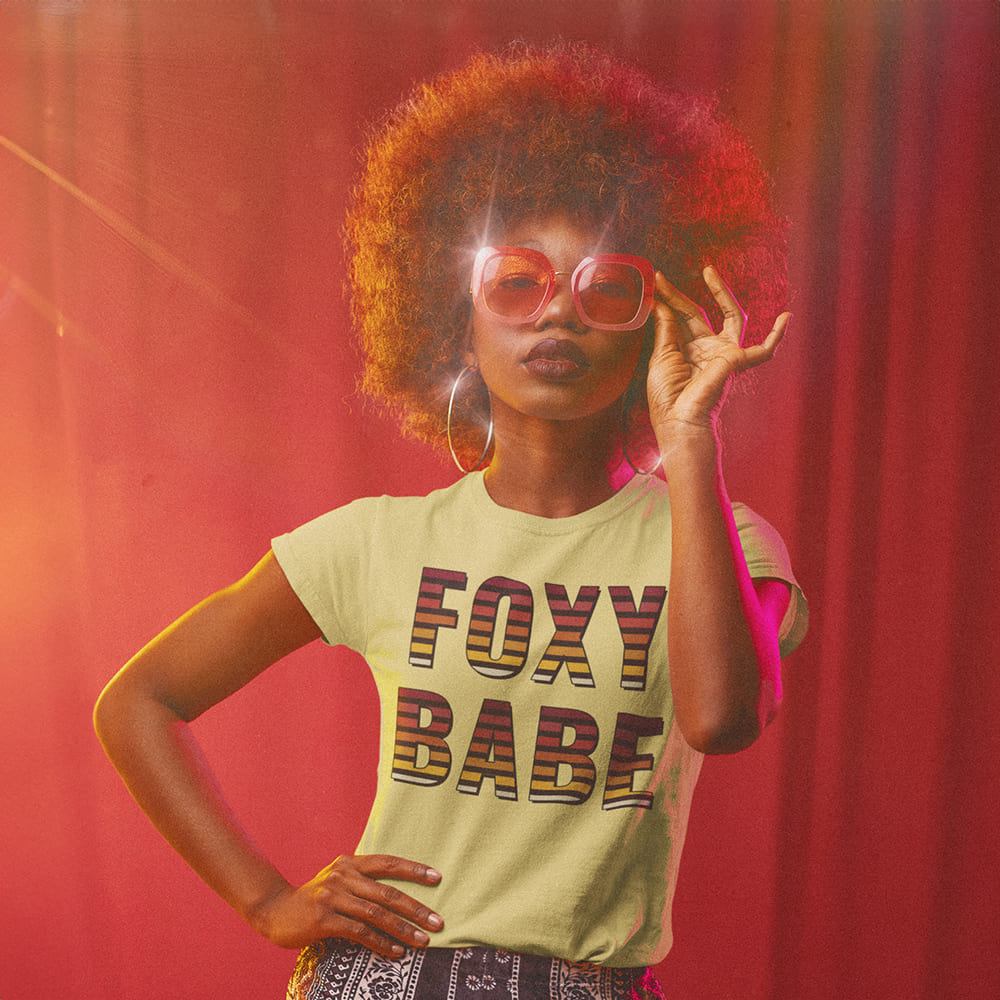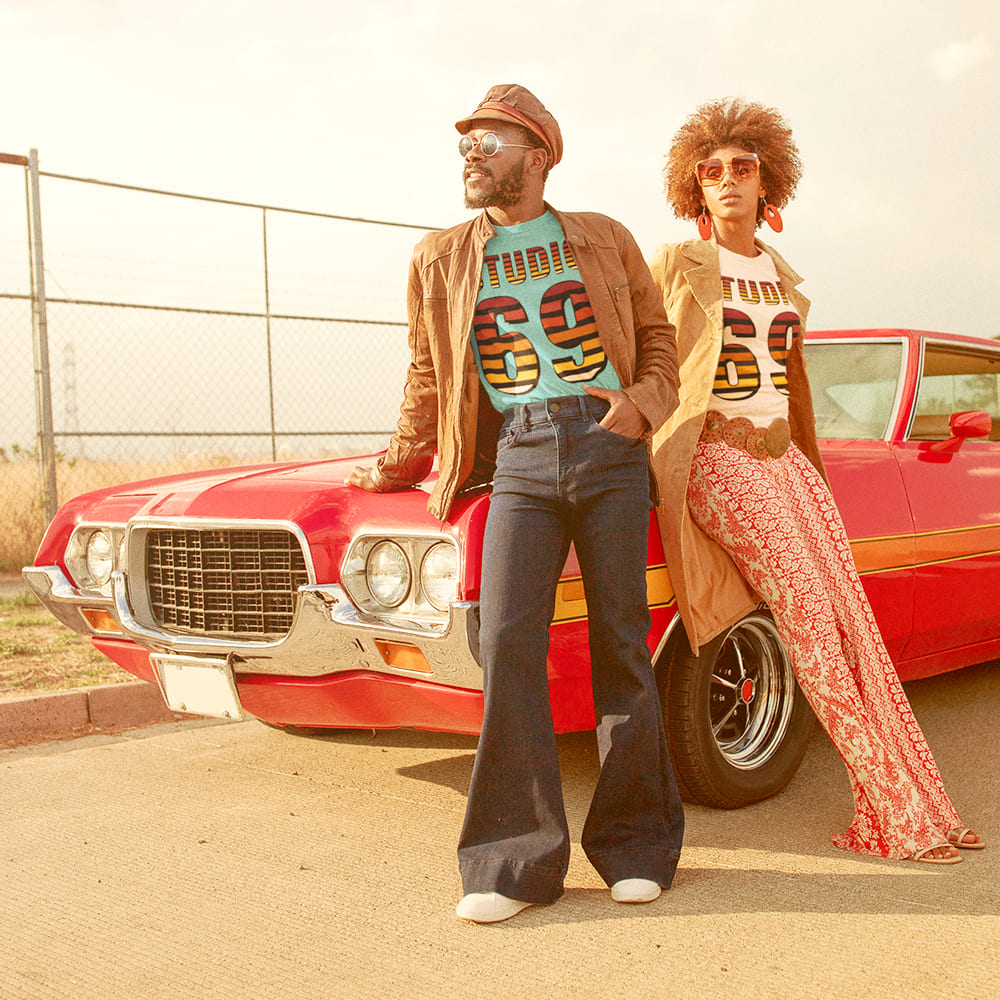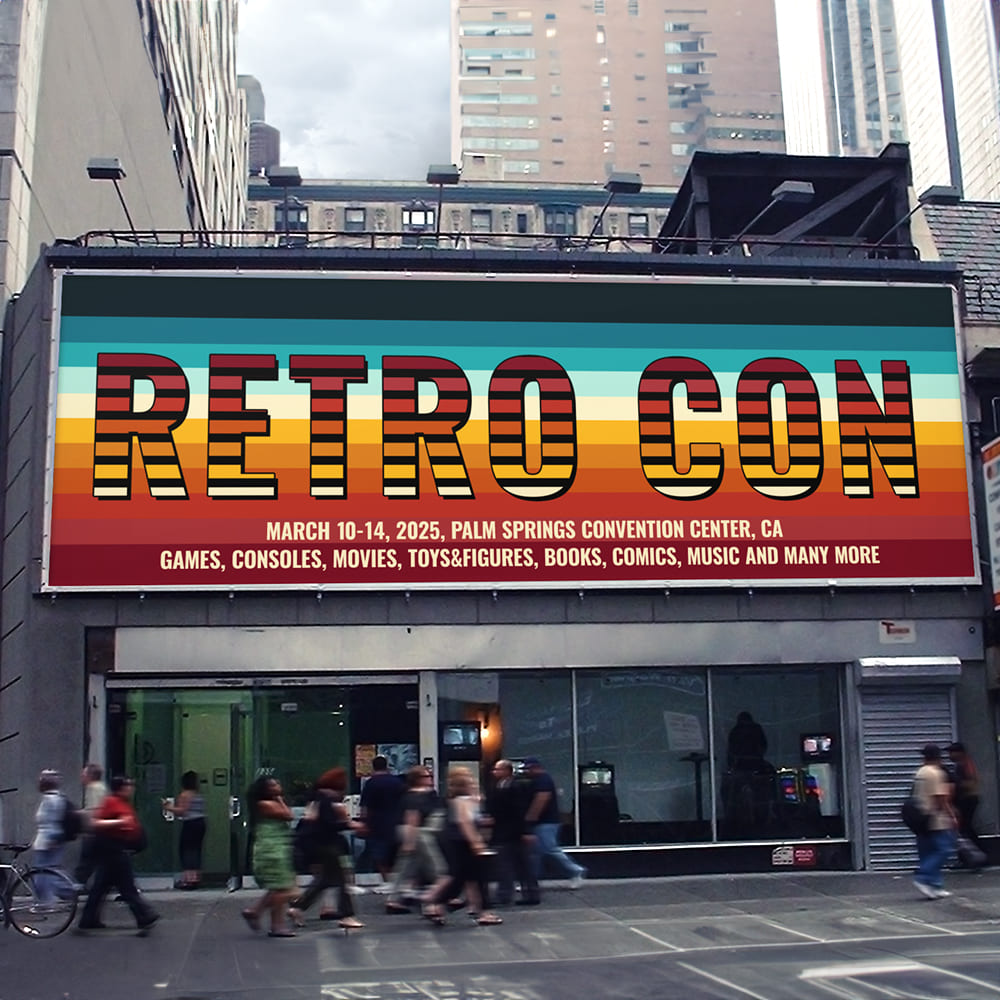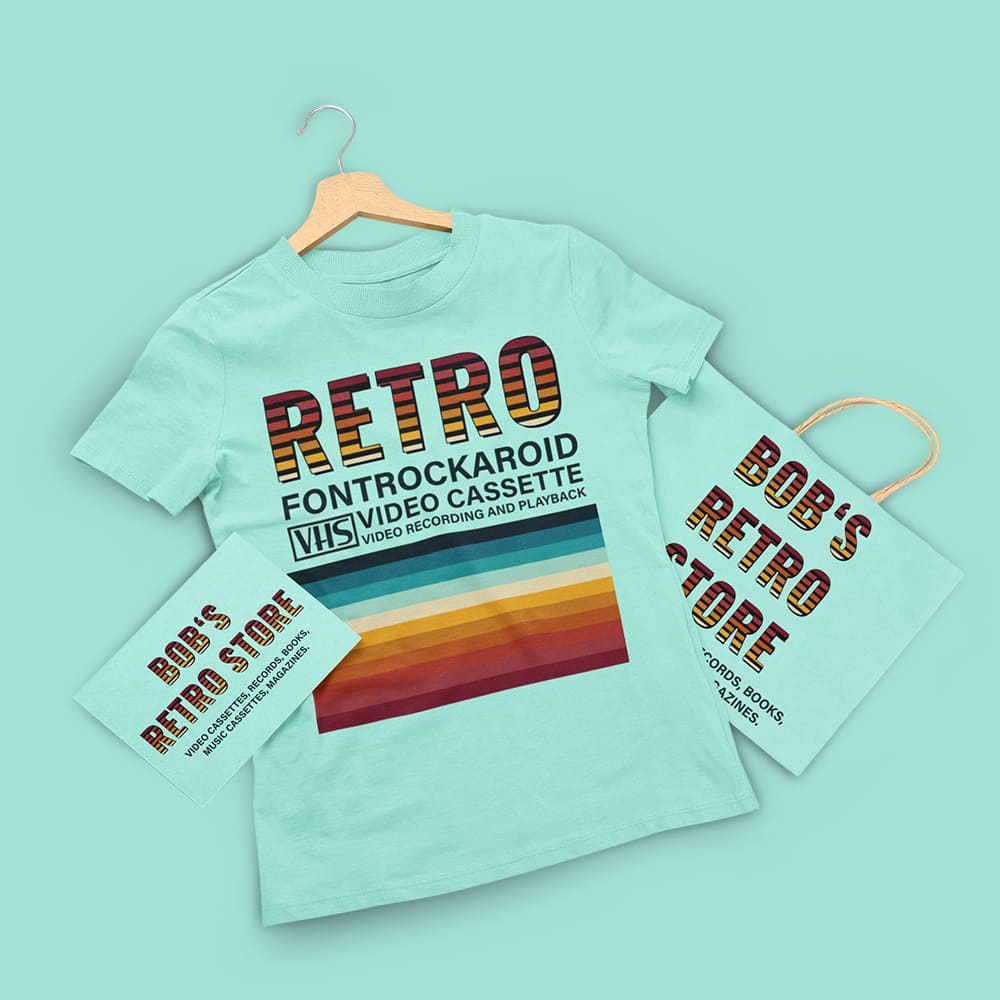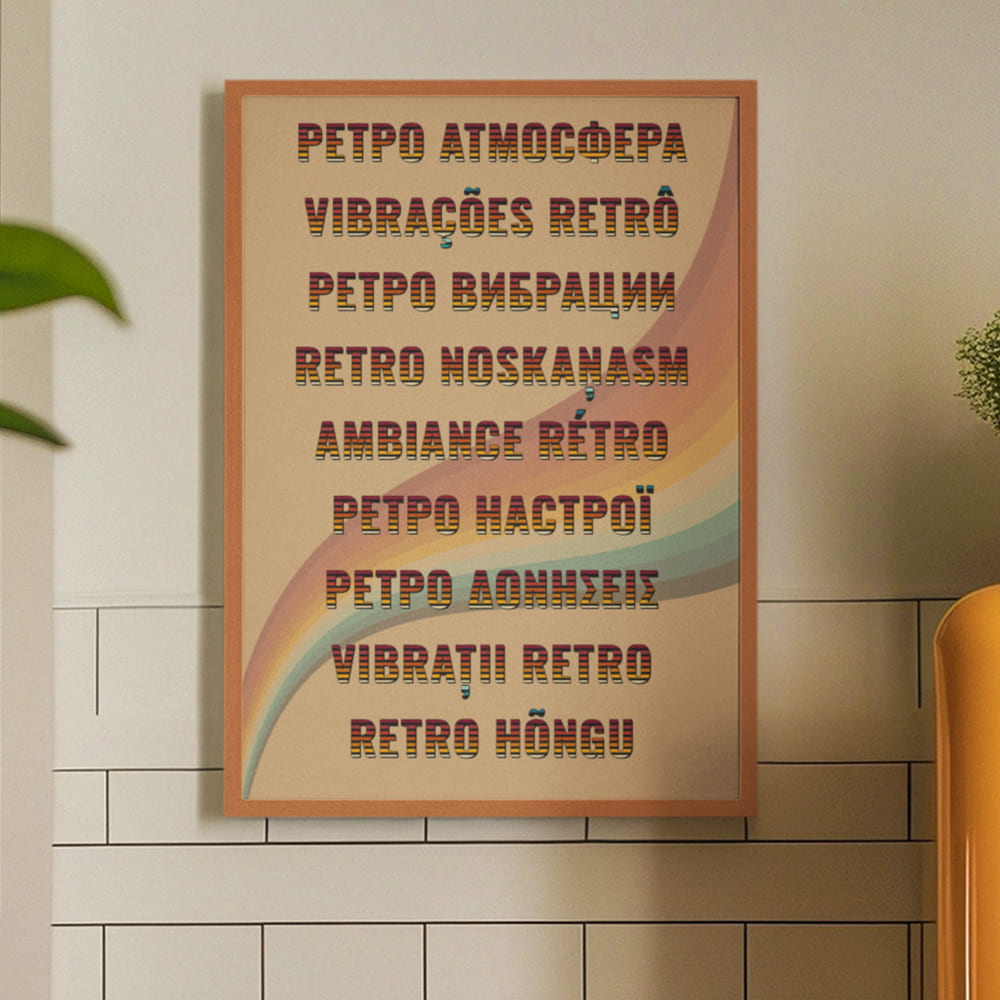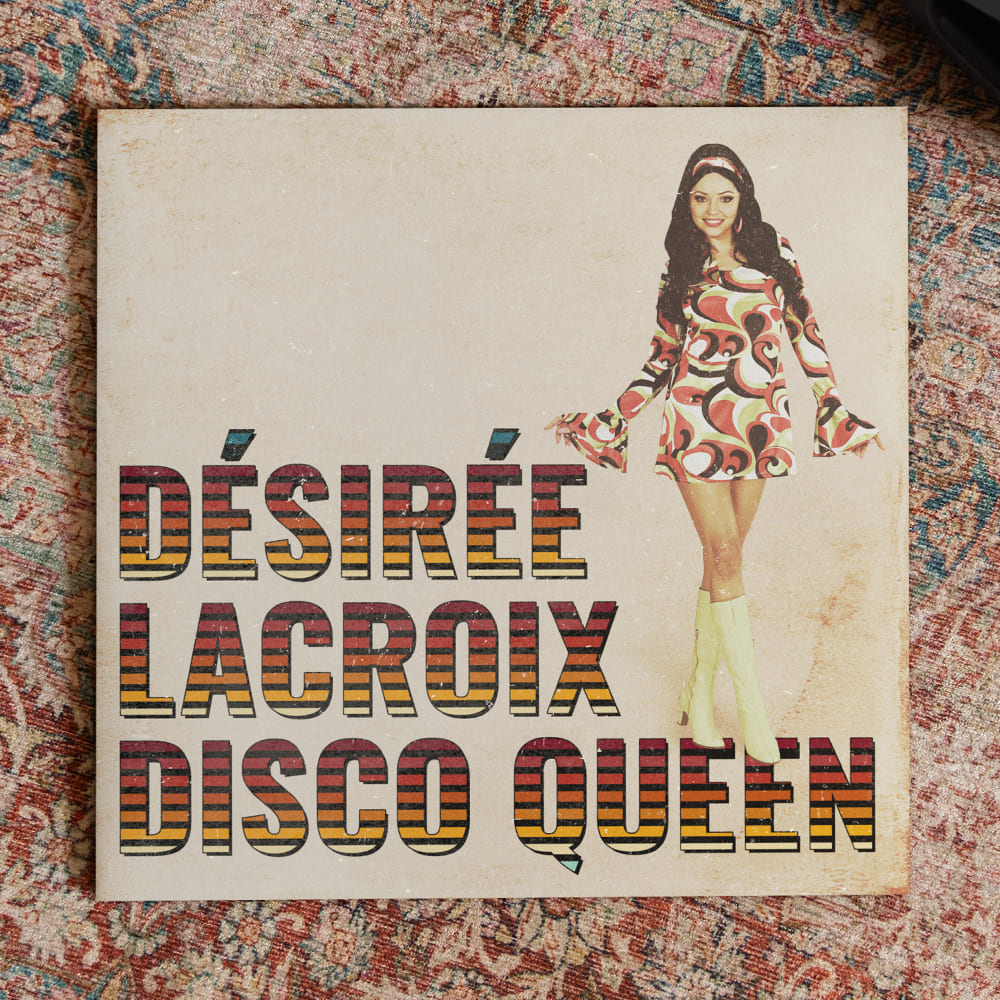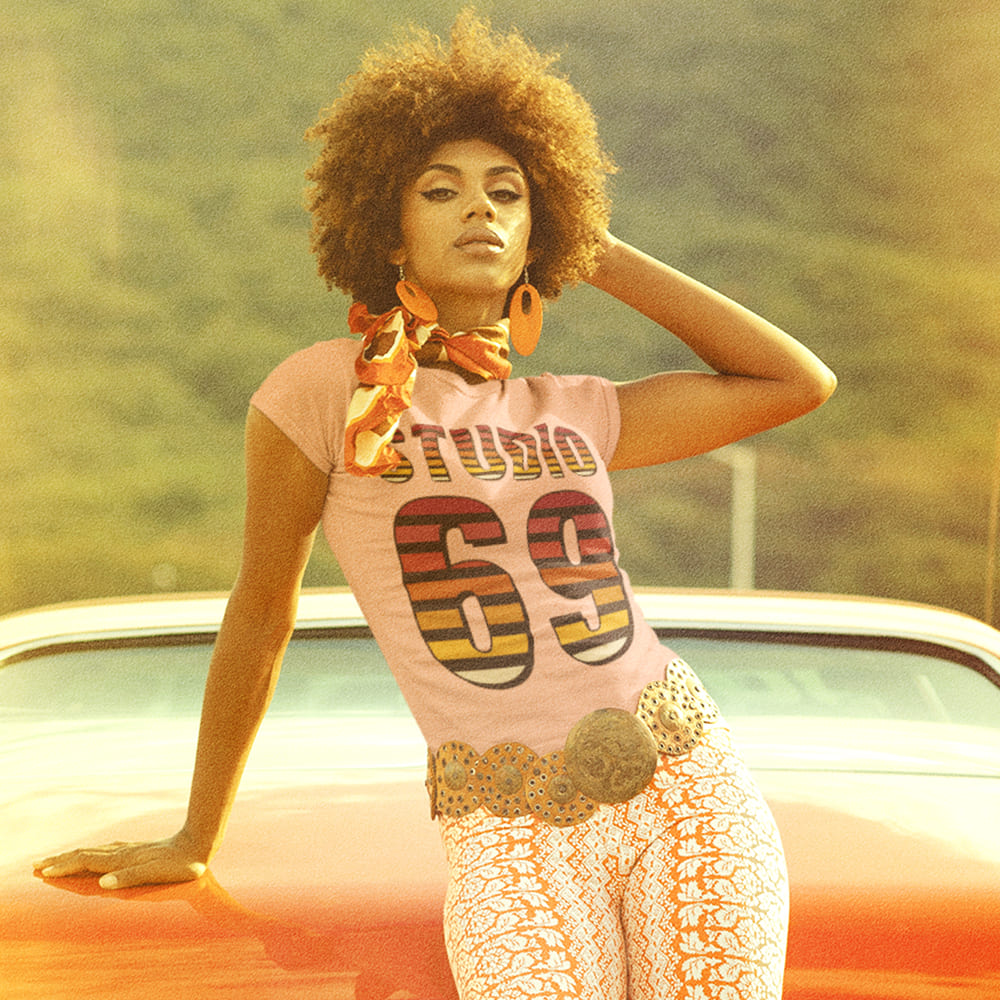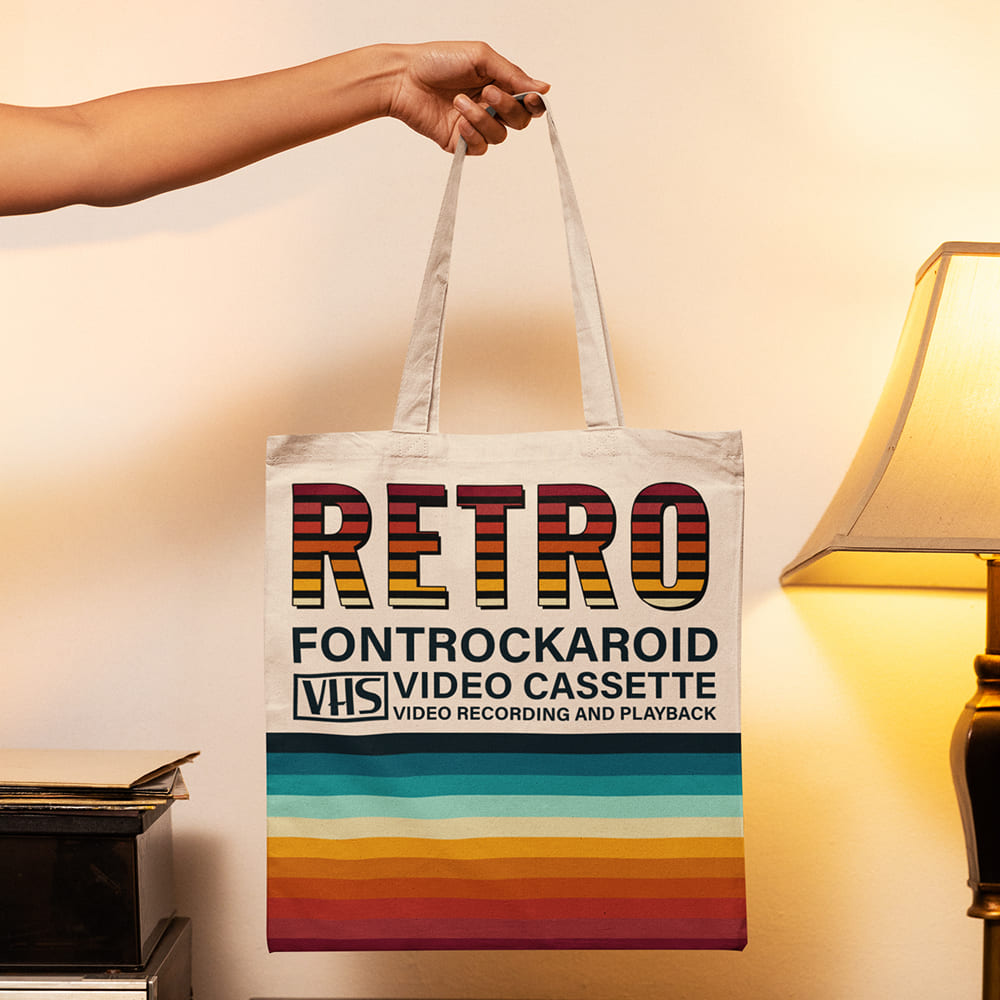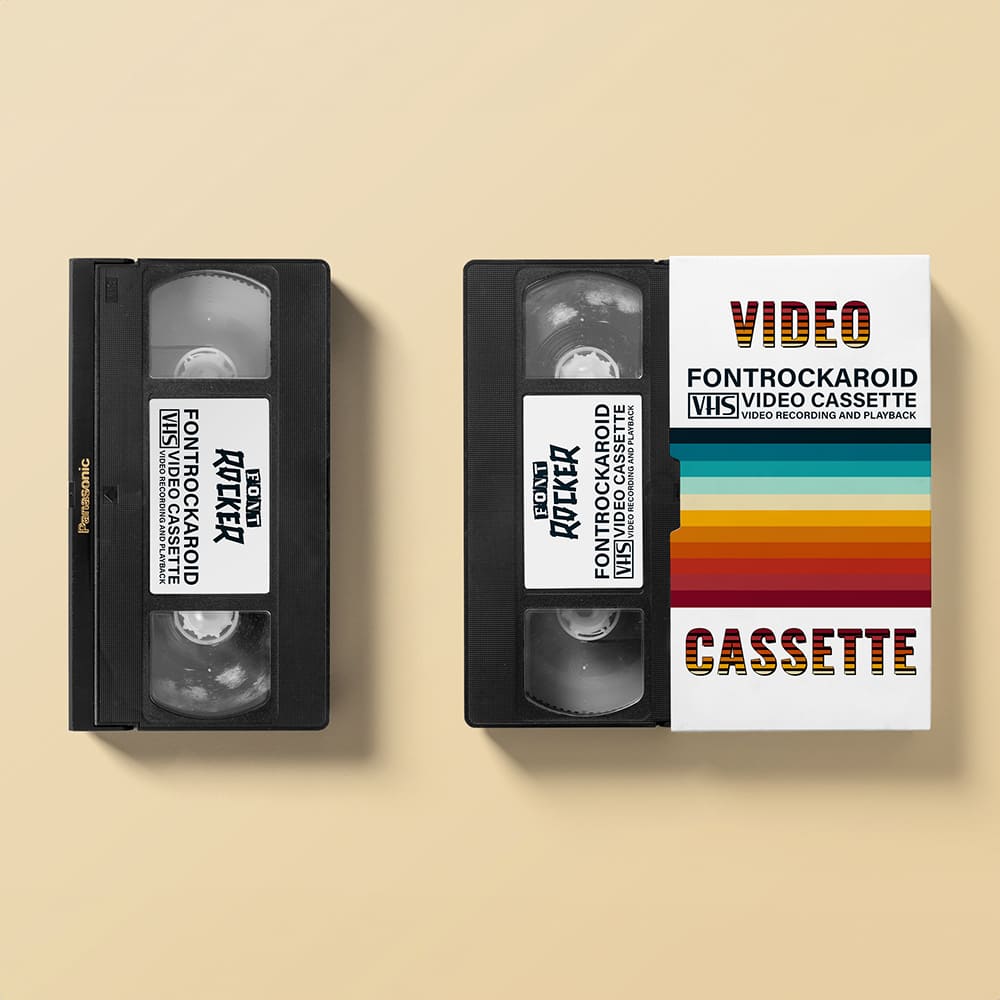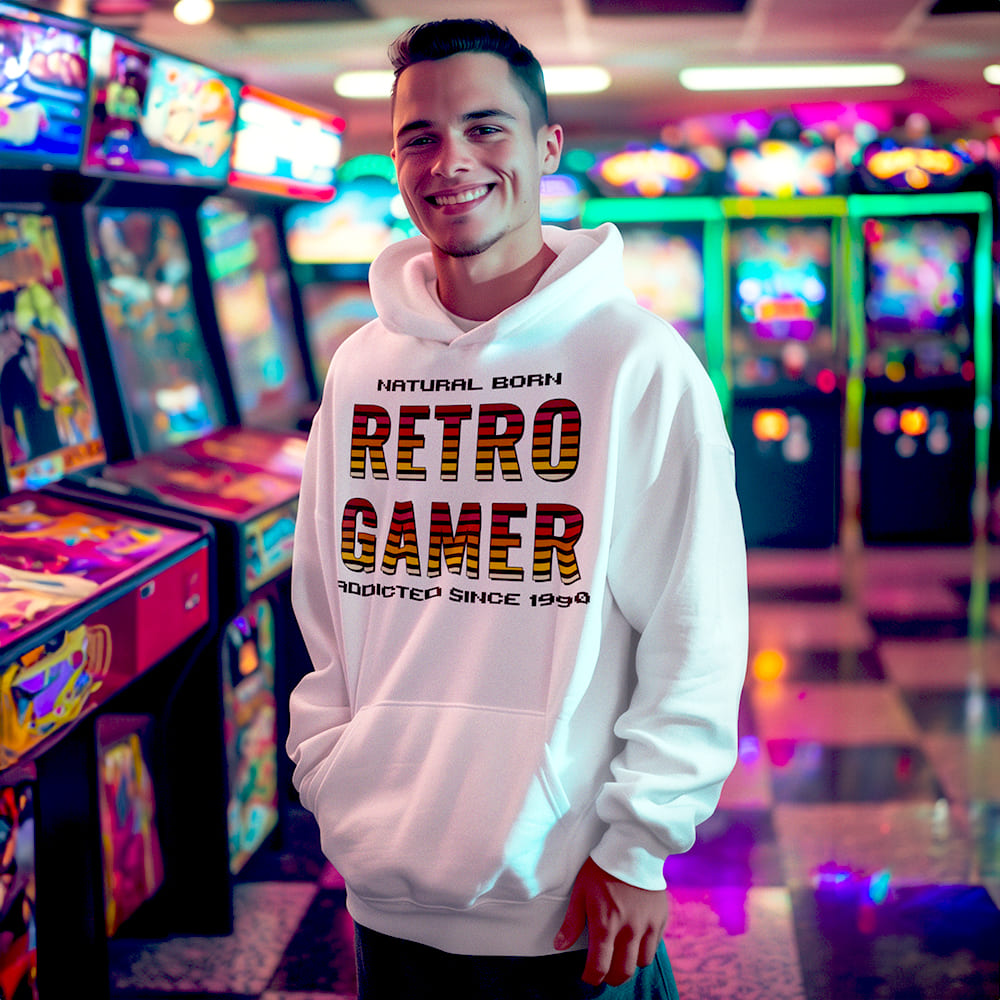
Retro Font
Timeless, Stylish, Unstoppable πΌποΈπΉοΈπ½
Back to the golden age of design! The Retro Font brings the unforgettable charm of the 50s, 60s, 70s, and 80s straight into your project. Inspired by vintage ads, neon lights, record covers, and arcade games, this font adds an extra dose of nostalgia β packed with style, character, and retro vibes!
Why Choose the Retro Font?
πΉ Authentic Vintage Aesthetic β Perfect for designs that capture the classic cinema feel, retro cars, and old-school advertising signs from a different era.
πΉ True Retro Character β From classic 50s posters to iconic 70s logos and bold 80s arcade fonts, this typeface delivers the look you need.
πΉ Perfect for Branding & Design β Whether itβs for posters, logos, social media posts, merchandise, or t-shirts, this font transports your design straight into a stylish retro time machine.
Bring the Retro Vibe into Your Design!
With the Retro Font, you get the best of multiple decades β stylish, unique, and full of character. Perfect for anyone who wants to mix the charm of the past with modern design.
πΉ Choose vintage. Choose style. Choose the Retro Font.